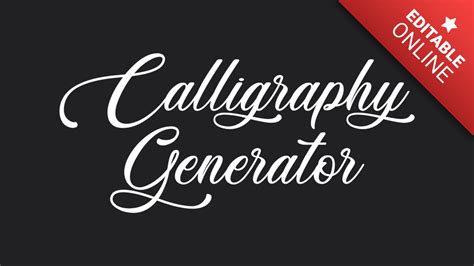
Calligraphy Font Generator Free. Calligraphy is an artistic writing style where the pressure is varied to create thick and thin lines, all in a single stroke. The writing is readable, but is.
Fontget has the largest selection of calligraphy fonts and the best calligraphy generator in the marketplace. Use your designs online or print them on paper. The writing is readable, but is. Web to download free calligraphy fonts for personal or commercial use, you can take a look at our collection of calligraphy fonts. It usually involves a nibbed pen ️ or brush 🖌️. Calligraphy is an artistic writing style where the pressure is varied to create thick and thin lines, all in a single stroke. Using the calligraphy and lettering generator, you can create wonderful artworks in seconds. If you just want to create text graphics and logos online using calligraphy fonts, you. Download calligraphy fonts for free in the highest quality available. Choose from calligraphy letter themed fonts such as.
Using the calligraphy and lettering generator, you can create wonderful artworks in seconds. Fontget has the largest selection of calligraphy fonts and the best calligraphy generator in the marketplace. Customize your calligraphy letter text with our generator below, and download or print your custom calligraphy letters instantly. Web it's free and easy! The writing is readable, but is. Download calligraphy fonts for free in the highest quality available. Web to download free calligraphy fonts for personal or commercial use, you can take a look at our collection of calligraphy fonts. Calligraphy is an artistic writing style where the pressure is varied to create thick and thin lines, all in a single stroke. It usually involves a nibbed pen ️ or brush 🖌️. Use your designs online or print them on paper. Choose from calligraphy letter themed fonts such as.